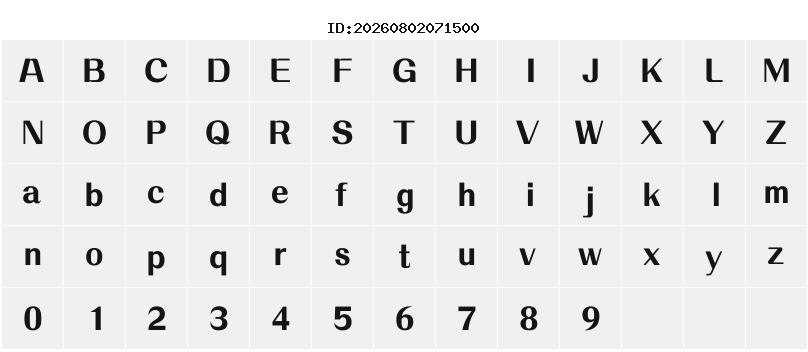
About MEllan HK Xbold.ttf
MEllan HK Xbold.ttf is a modern, elegant sans-serif font designed for ultimate readability and visual harmony. Perfect for branding, headlines, web design, and print materials.